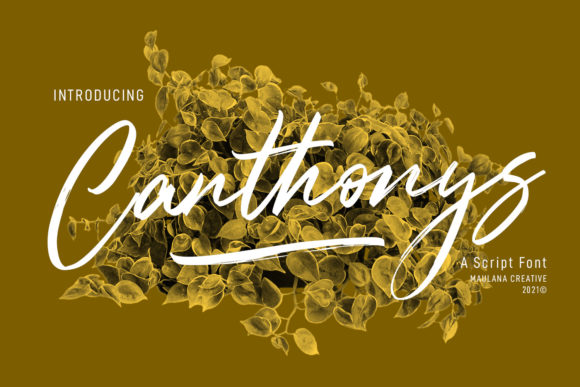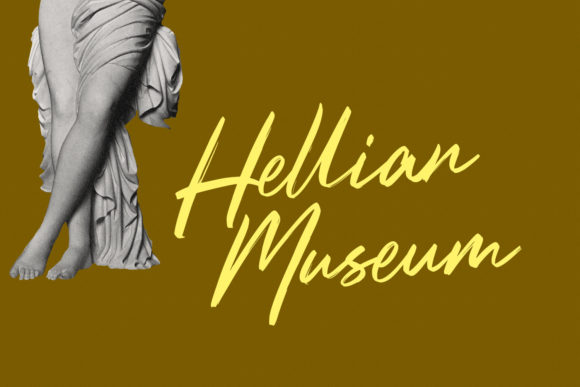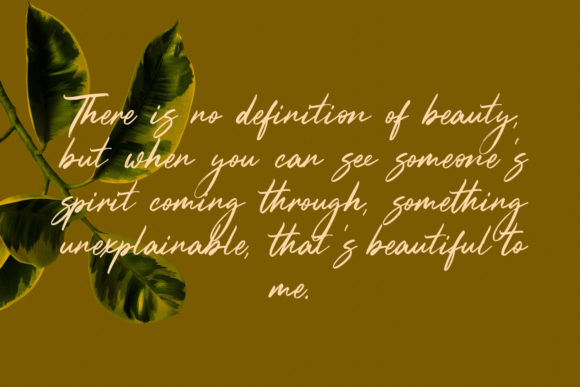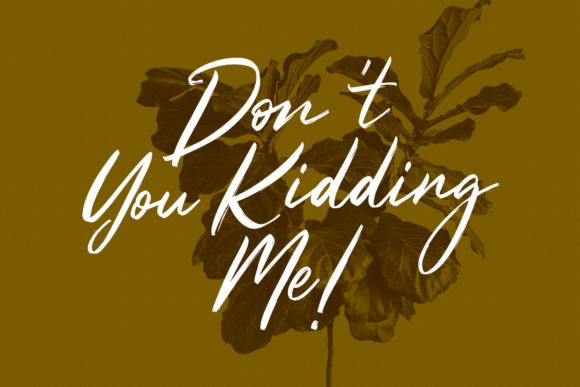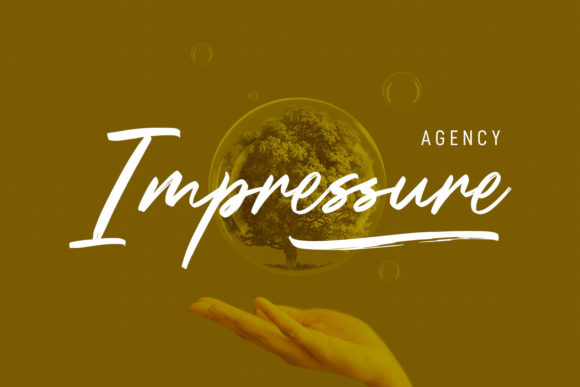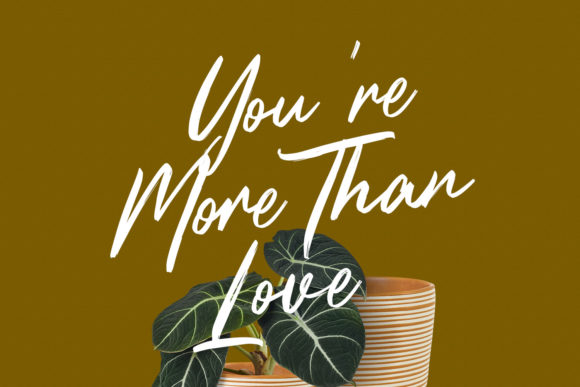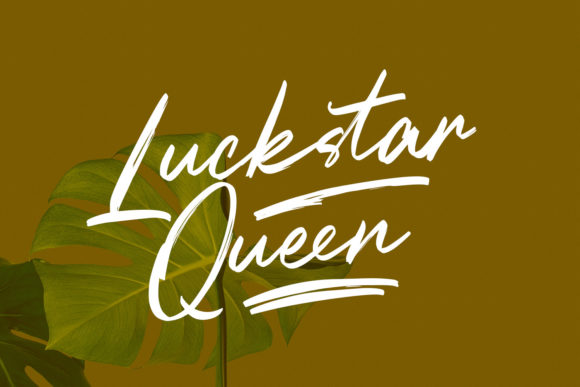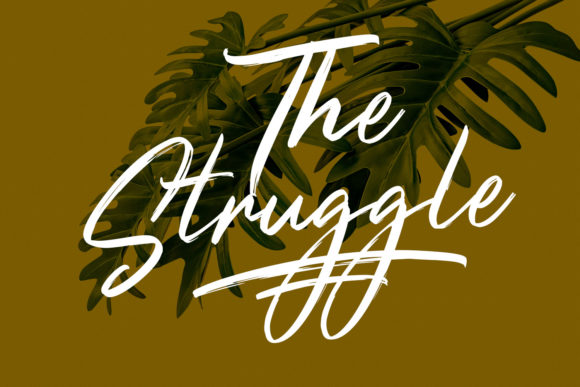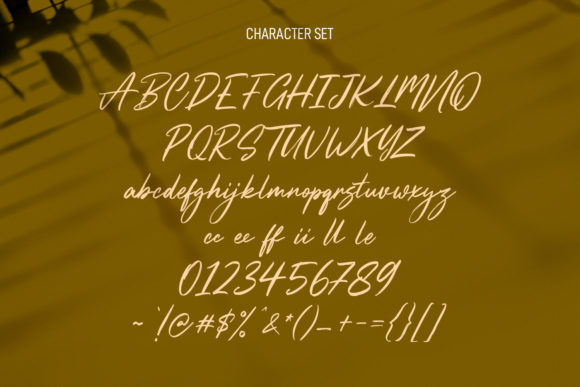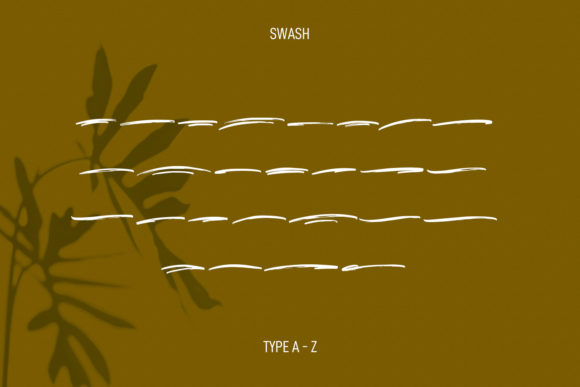
Canthonys Font
About Canthonys Font
Canthonys is a flowing and relaxed script font. It looks lovely on wedding invitations, thank you cards, quotes, greeting cards, logos, business cards and every other design which needs a customized touch.